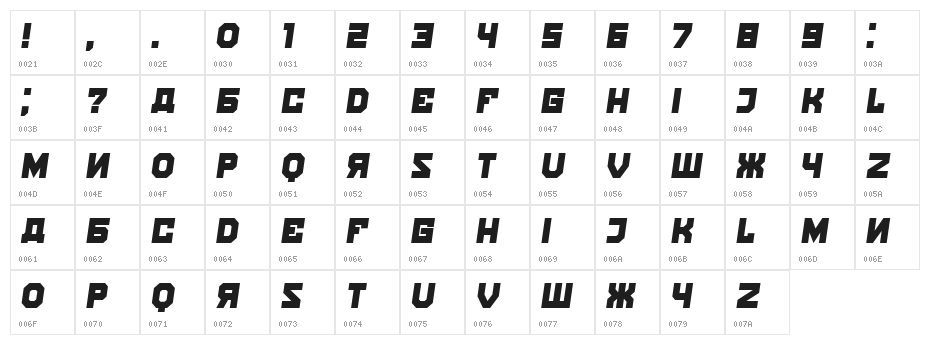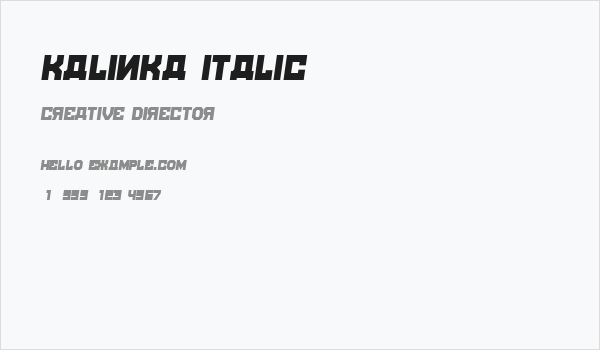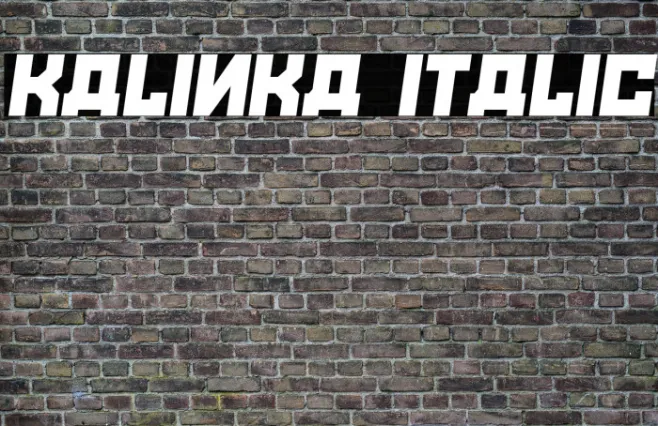
Kalinka Italic Font
Kalinka Italic Description
This font features a bold, angular design with a strong geometric influence, characterized by sharp edges and a distinct slant that gives it a dynamic and energetic appearance. The uppercase letters are particularly striking, with a blocky, robust form that commands attention. The numbers and special characters maintain this bold style, ensuring consistency across all glyphs. The italicized nature of the font adds a sense of movement and urgency, making it ideal for impactful designs. Its unique style makes it stand out, suitable for projects that require a modern and edgy aesthetic.
| Proposed Projects | Ideal for sports branding, dynamic posters, video game titles, and modern advertising campaigns. |